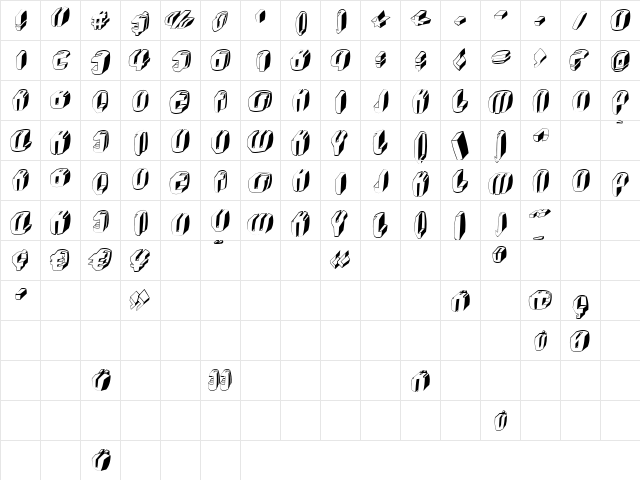
TypoCubes Regular
Design Context for TypoCubes Typeface
TypoCubes is a composed and adaptable typeface that performs quietly and consistently across a wide range of design contexts.